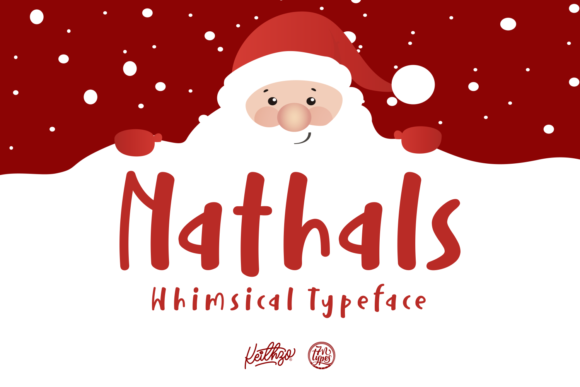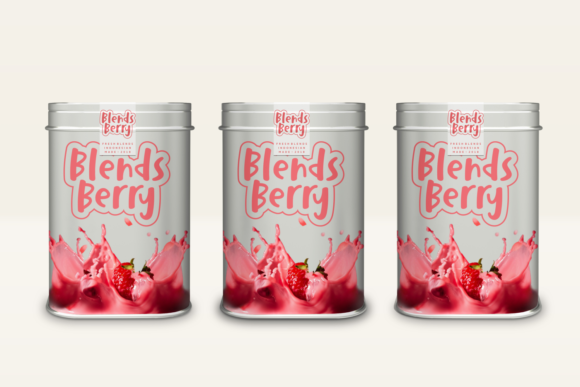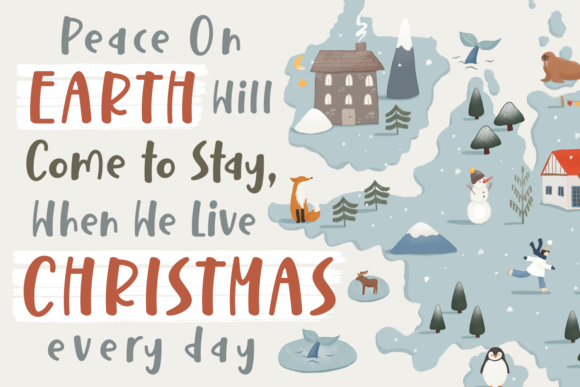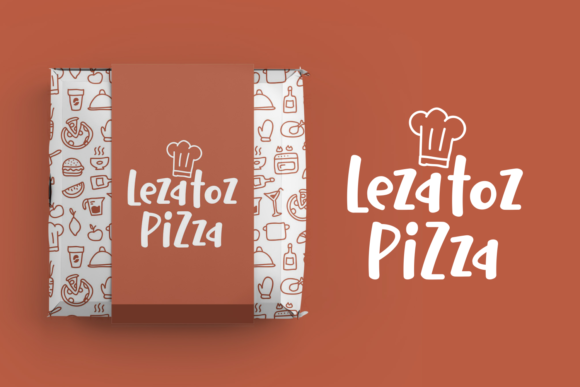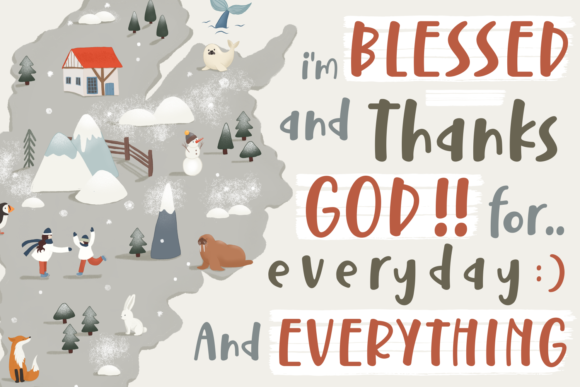
Nathals Font
About Nathals Font
The Nathals is a whimsical script font. Its bold letters have a fun feel and a perfect readability.
It’s perfect for adding a playful and unique touch to any design!